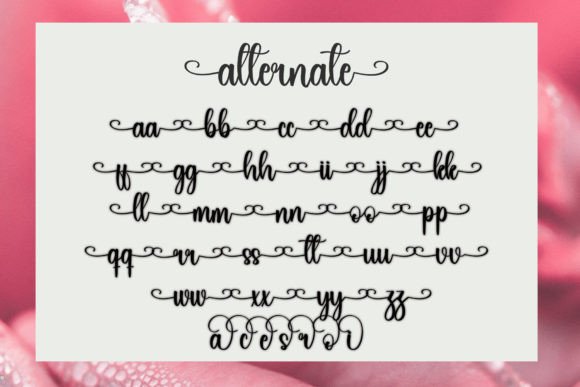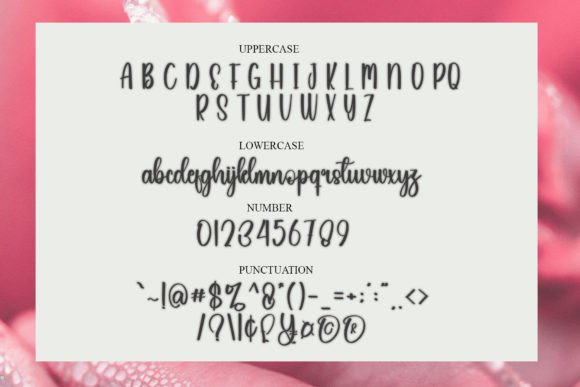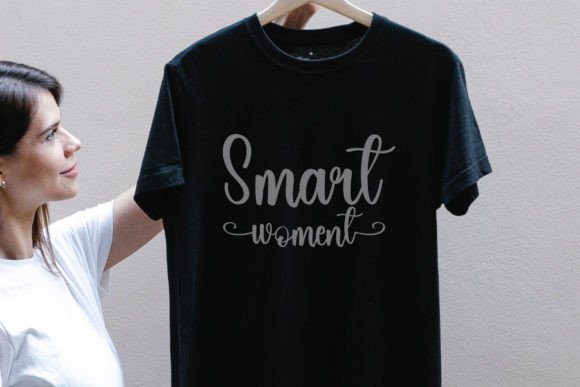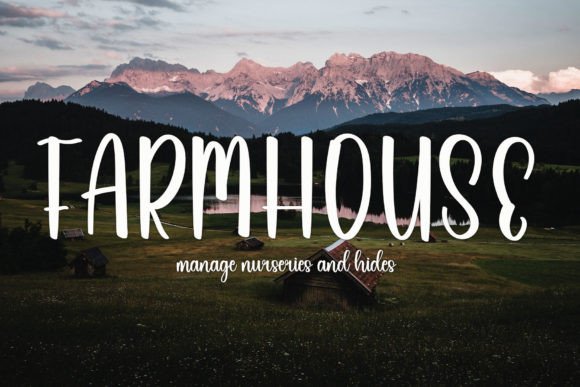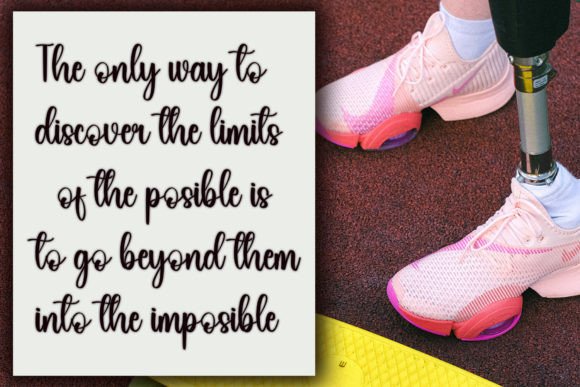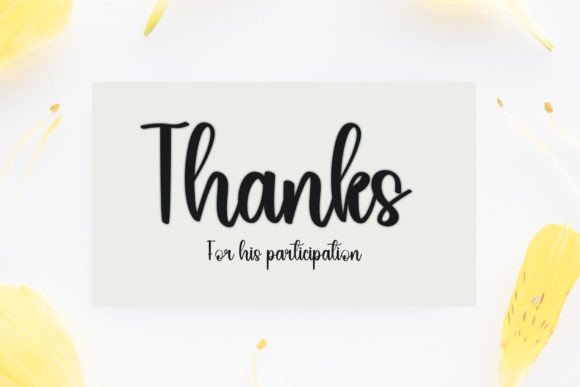
Easter Font: A Sweet and Delicate Handwritten Font for Your Creative Projects
Easter is a beautiful, sweet, and delicate handwritten font that is perfect for adding a touch of romance and personality to your designs. This dainty and joyful font is ideal for writing wedding invitations, cards, or any other design that may need a romantic, personalized touch. In this article, we’ll take a closer look at the Easter font, its features, and how you can use it to elevate your creative projects.
What is Easter Font?
Easter font is a type of handwritten font that is designed to mimic the elegant and delicate handwriting of a skilled calligrapher. It’s a unique and charming font that features intricate lettering, subtle imperfections, and a touch of whimsy. The font is perfect for designers and crafters who want to add a personal touch to their work, whether it’s a wedding invitation, a greeting card, or a DIY craft project.
Features of Easter Font
The Easter font has several features that make it stand out from other fonts. Some of its key features include:
- Delicate and dainty design: The Easter font features a delicate and dainty design that is perfect for creating romantic and elegant designs.
- Handwritten style: The font has a handwritten style that gives it a personal and unique touch.
- Intricate lettering: The font features intricate lettering with subtle imperfections that give it a human touch.
- Whimsical feel: The Easter font has a whimsical feel that makes it perfect for creating designs that are playful and fun.
Uses of Easter Font
The Easter font is a versatile font that can be used for a variety of creative projects. Some of the most popular uses of the Easter font include:
- Wedding invitations: The Easter font is perfect for creating beautiful and elegant wedding invitations that will set the tone for the big day.
- Greeting cards: The font is also great for creating greeting cards for special occasions such as birthdays, anniversaries, and holidays.
- DIY craft projects: The Easter font can be used for a variety of DIY craft projects such as scrapbooking, journaling, and paper crafting.
- Stationery and gift tags: The font is perfect for creating custom stationery and gift tags that add a personal touch to gifts.
Tips for Using Easter Font
Here are some tips for using the Easter font in your creative projects:
- Pair it with other fonts: The Easter font can be paired with other fonts to create a unique and interesting design.
- Use it for headings and titles: The font is perfect for headings and titles, but it can also be used for body text for a more elegant look.
- Experiment with colors: The Easter font can be used with a variety of colors to create different effects and moods.
- Add embellishments: The font can be paired with embellishments such as flowers, hearts, and stars to create a more whimsical design.
The Easter font is a beautiful and delicate handwritten font that is perfect for adding a touch of romance and personality to your designs. Its intricate lettering, subtle imperfections, and whimsical feel make it ideal for creating elegant and playful designs. Whether you’re a designer or a crafter, the Easter font is a great addition to your font collection. So why not give it a try and see how it can elevate your creative projects?
In conclusion, the Easter font is a sweet and delicate handwritten font that is perfect for writing wedding invitations, cards, or any other design that may need a romantic, personalized touch. Its unique features, versatility, and ease of use make it a great choice for designers and crafters who want to add a personal touch to their work.